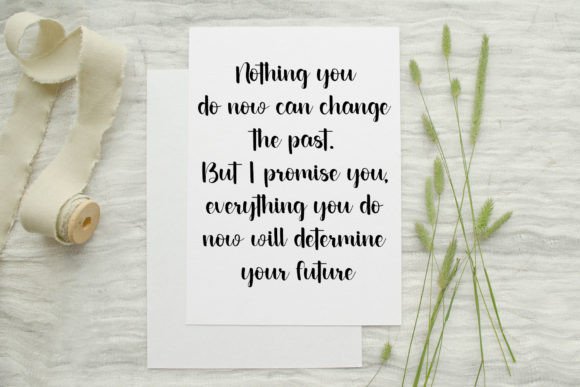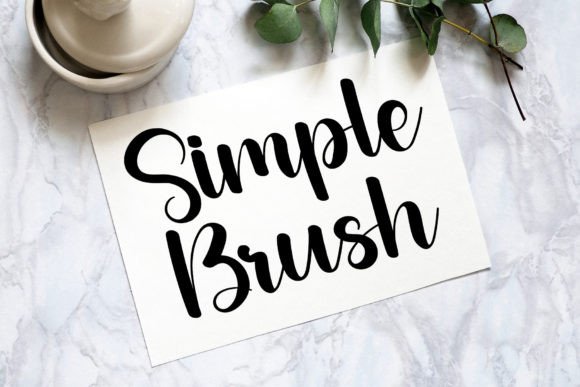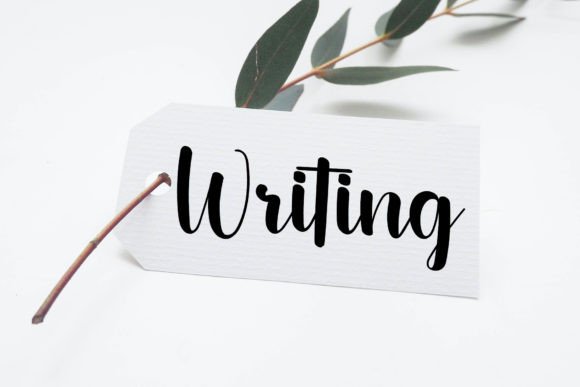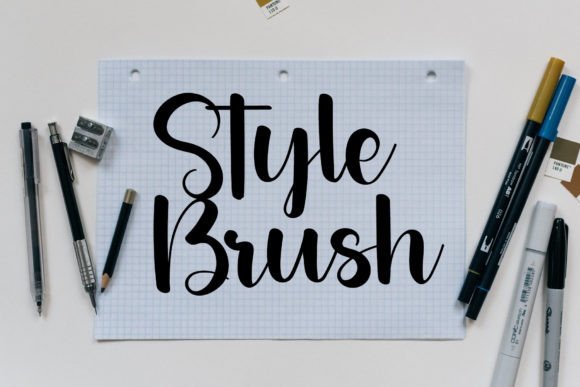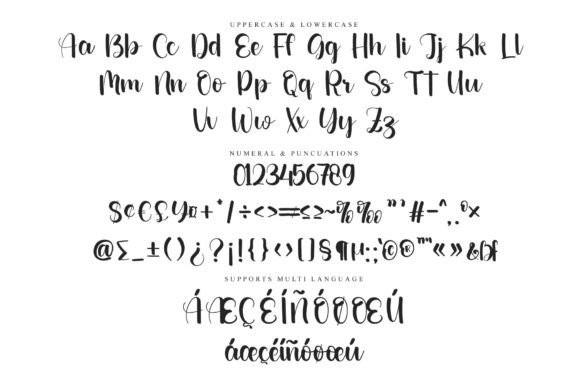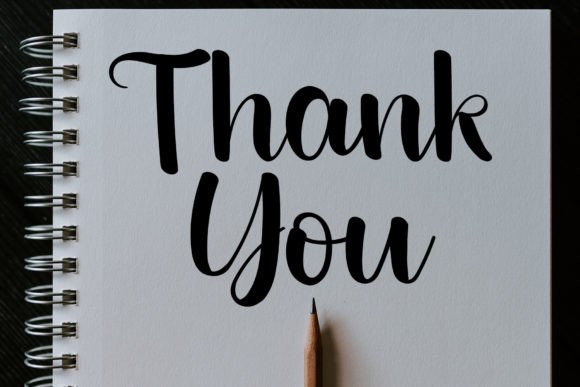
Getting Font: Elevate Your Designs with Timeless Elegance
Are you on the hunt for a font that exudes sophistication and style? Look no further than Getting Font, a stunning handwritten font that brings a touch of classic calligraphy to your modern designs. With its impeccable form and balanced aesthetic, Getting Font is the perfect choice for designers and crafters seeking to add a dash of elegance to their projects.
The Inspiration Behind Getting Font
Getting Font draws inspiration from the timeless world of classic calligraphy, where the art of beautiful handwriting reigns supreme. The font’s creator has carefully crafted each letter to reflect the essence of traditional calligraphy, while infusing it with a contemporary twist. The result is a font that feels both nostalgic and fresh, perfect for designs that require a sense of heritage and sophistication.
Key Features of Getting Font
- Contemporary Atmosphere: Getting Font boasts a modern, refined aesthetic that’s perfect for designs that demand a sense of style and poise.
- Impeccable Form: Each letter has been meticulously crafted to ensure a flawless, balanced appearance that enhances the beauty of your projects.
- Balanced and Varied: Getting Font features a range of characters and ligatures, allowing you to create complex, visually appealing text arrangements that capture the eye.
- Handwritten Charm: The font’s handwritten nature adds a touch of warmth and personality to your designs, making them feel more approachable and engaging.
Perfect for a Range of Design Projects
Getting Font’s versatility makes it an excellent choice for a wide range of design projects, including:
- Branding and Logo Design: Create a lasting impression with a custom logo that showcases your brand’s personality and style.
- Stationery and Packaging: Add a touch of elegance to your business cards, letterheads, and product packaging.
- Web Design: Use Getting Font to create stunning website headers, titles, and other typography that captures the essence of your brand.
- Digital Art and Illustration: Combine Getting Font with your artwork to create visually striking compositions that tell a story.
Tips for Using Getting Font Effectively
To get the most out of Getting Font, consider the following tips:
- Mix and Match: Combine Getting Font with other fonts to create visually interesting text arrangements.
- Play with Size and Color: Experiment with different font sizes and colors to add depth and hierarchy to your designs.
- Pay Attention to Kerning: Take the time to adjust the kerning and spacing between letters to ensure a polished, professional appearance.
Getting Font is a beautiful, stylish handwritten font that brings a touch of timeless elegance to your designs. With its impeccable form, balanced aesthetic, and contemporary atmosphere, it’s the perfect choice for designers and crafters seeking to elevate their projects. Whether you’re working on branding, stationery, web design, or digital art, Getting Font is sure to become a go-to font in your collection.